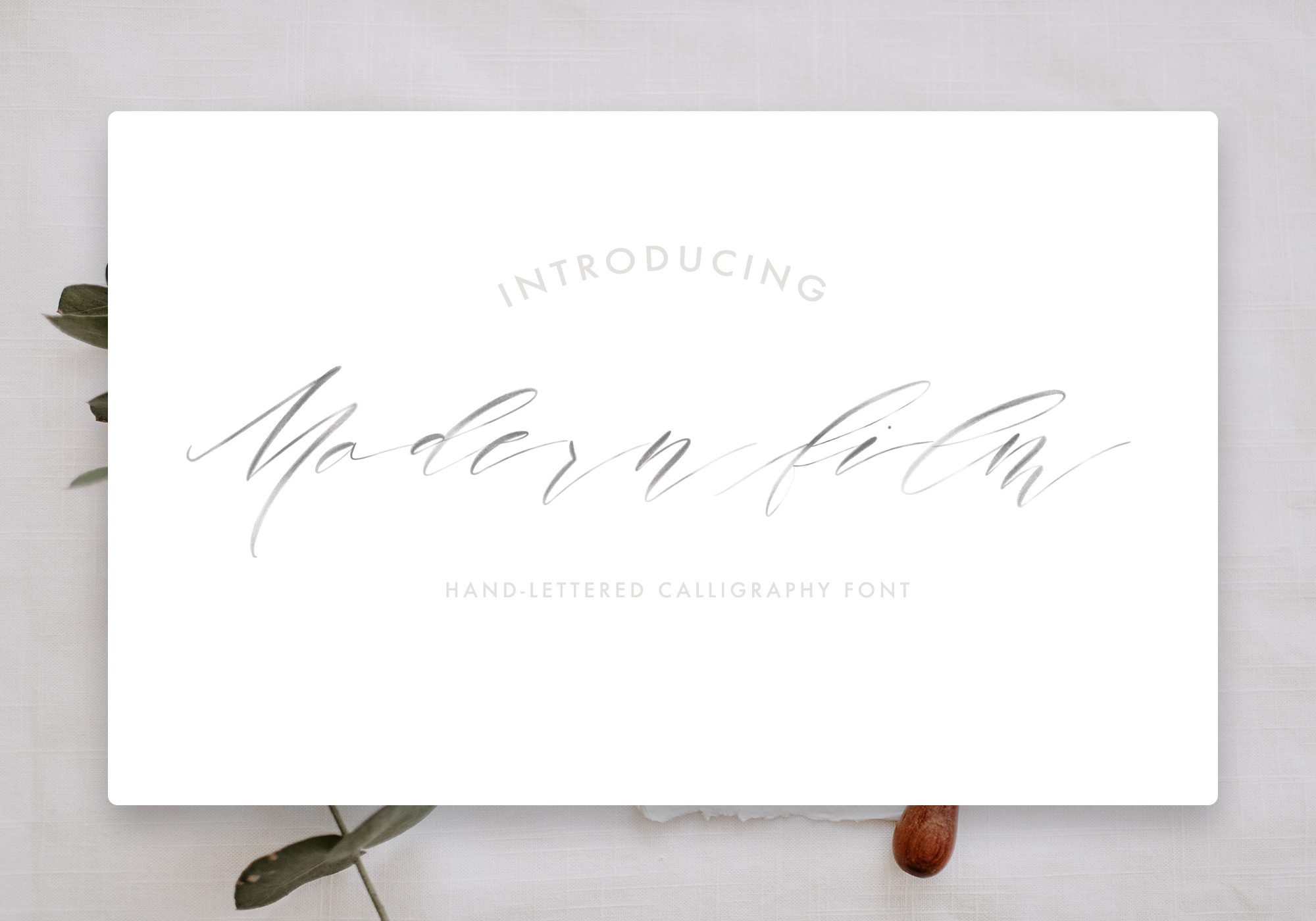
Modern Film Font
The Modern Film font is a hand-lettered font for those of you wanting that authentic watercolor look. This font allows creatives to add a unique, one of a kind typography for their own branding. The possibilities are endless.